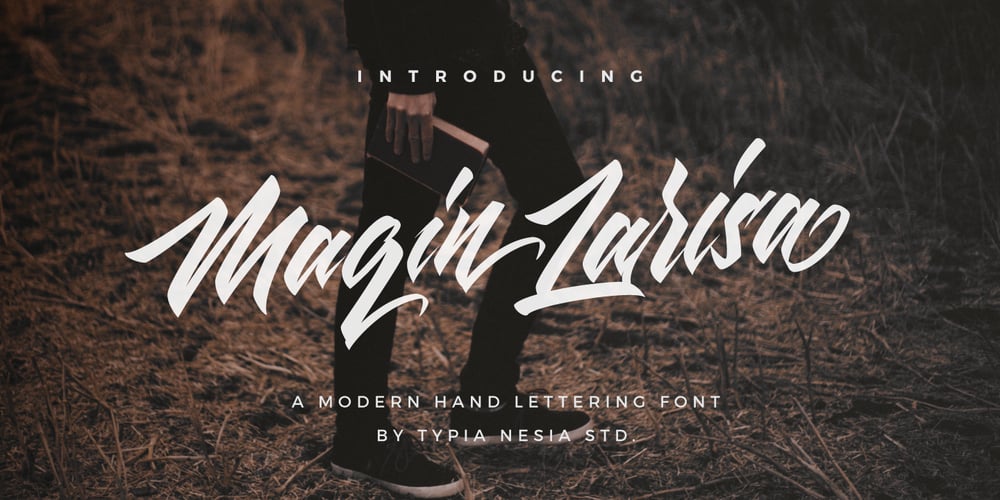
Maqin Larisa Font Family was designed by Arief Setyo Wahyudi and published by Typia Nesia. Maqin Larisa contains 1 styles and family package options. Maqin Larisa an excellent typeface for modern typography desain and hand lettering logo designs. Maqin Larisa typeface is suitable for any design needs, branding, modern invitation design, blog design, modern advertising design, art quote, cover title, t-shirts, any lettering design needs and more. Maqin Larisa comes with upper and lowercase Standard Characters, Punctuation, Numerals. And other Glyphs variation of the OpenType features such as Standard Ligature, Stylistic Alternate (with a completely new set of both lower and uppercase characters) and Stylistic Set (ss01, ss02, ss03, ss04, ss05).